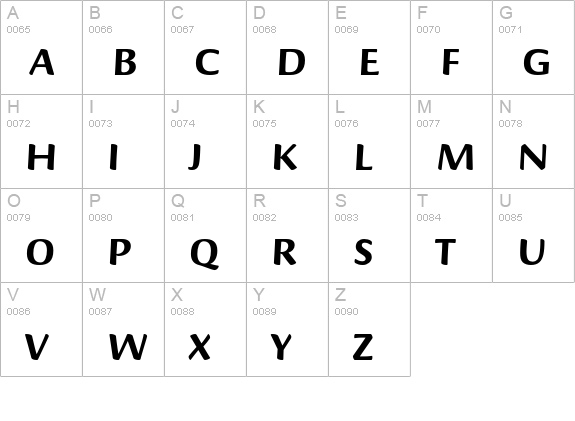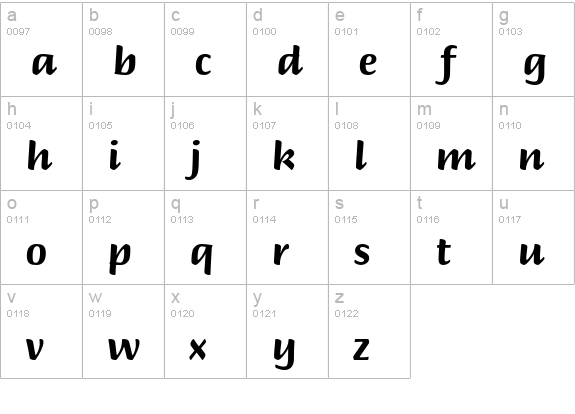
Briem Script Std Bold is a strong, high-contrast variant in the Briem typeface family \xE2\x80\x94 well suited to headlines, attention-grabbing titles, and strong calls-to-action.
Briem Script Std Bold is a charming and elegant font that exudes sophistication and style. With its bold and distinctive strokes, this typeface is perfect for adding a touch of flair to any design project. Whether you're creating wedding invitations, branding materials, or artistic pieces, Briem Script Std Bold will elevate your work with its timeless appeal. The best part? Briem Script Std Bold is available for free download at FontsMarket.com. This means you can access this premium font without any cost, making it a valuable addition to your font collection. Don't miss out on the opportunity to enhance your designs with the beauty and grace of Briem Script Std Bold. Download it today and let your creativity shine!